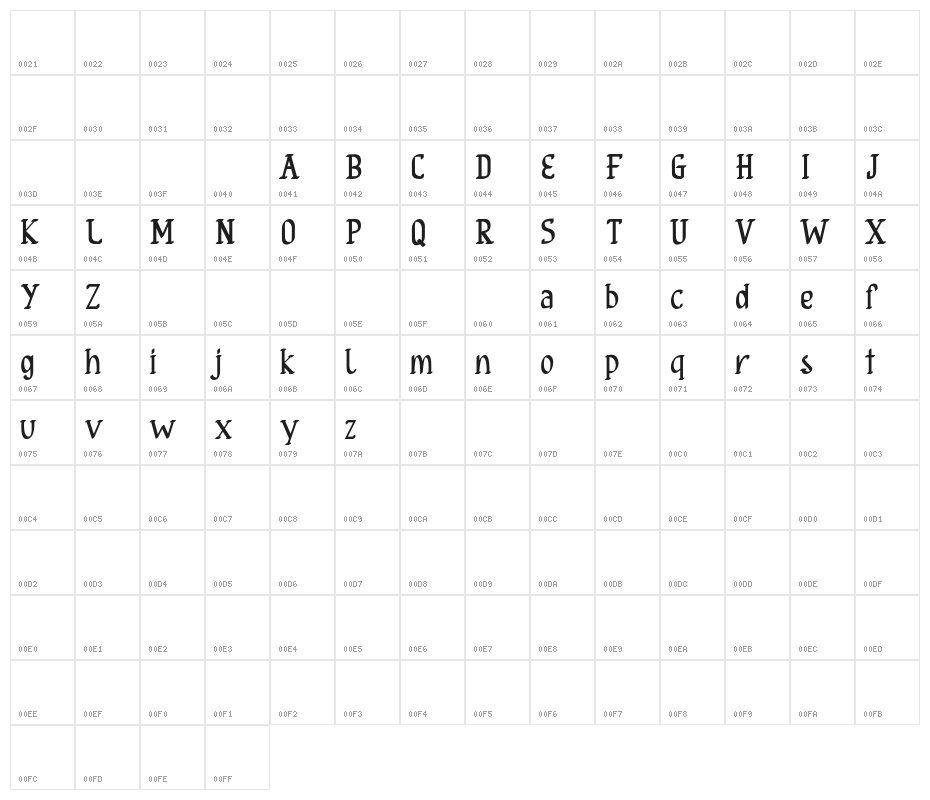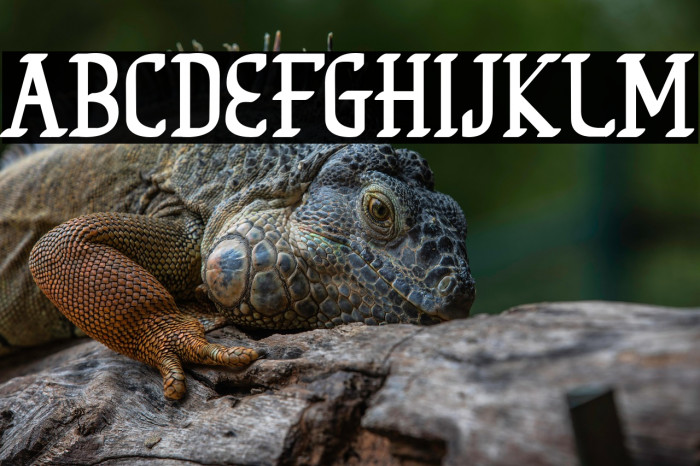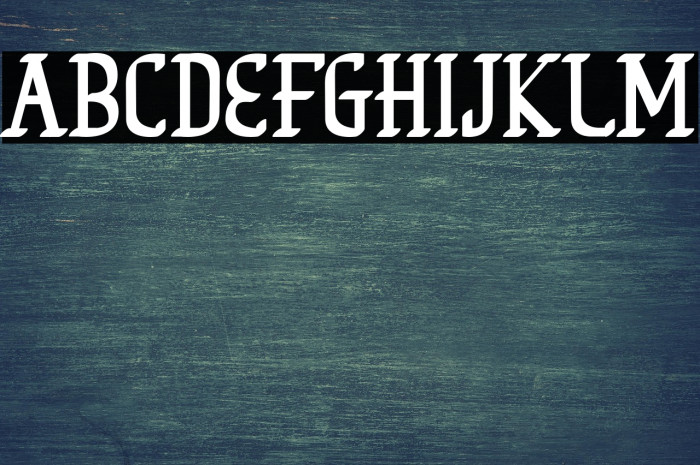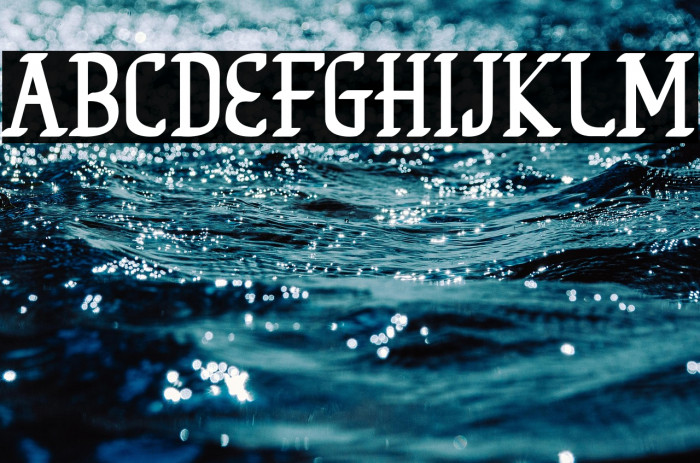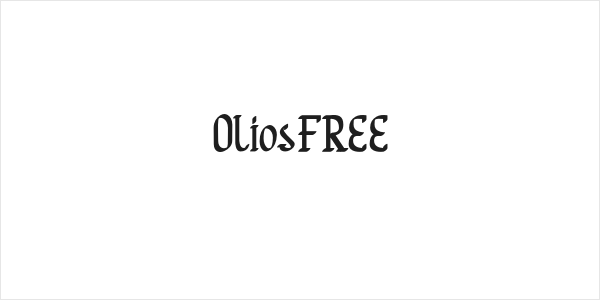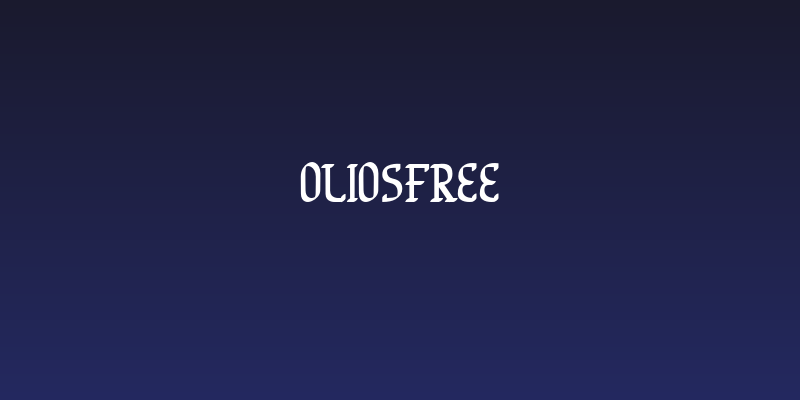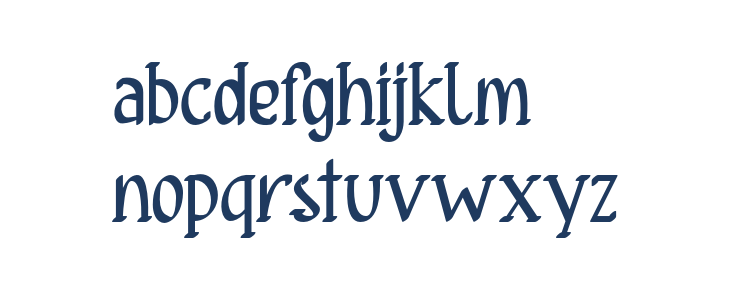
OliosFREE Font
OliosFREE Description
This font features a unique blend of classic and modern styles, characterized by its bold and slightly condensed letterforms. The uppercase letters exhibit a strong presence with their sharp serifs and distinct curves, while the lowercase letters maintain a harmonious flow with a touch of elegance. The font's design incorporates a moderate contrast in stroke thickness, giving it a dynamic and eye-catching appearance. Its overall style is both decorative and functional, making it versatile for various design applications. The character spacing is normal, ensuring readability without compromising its artistic flair.